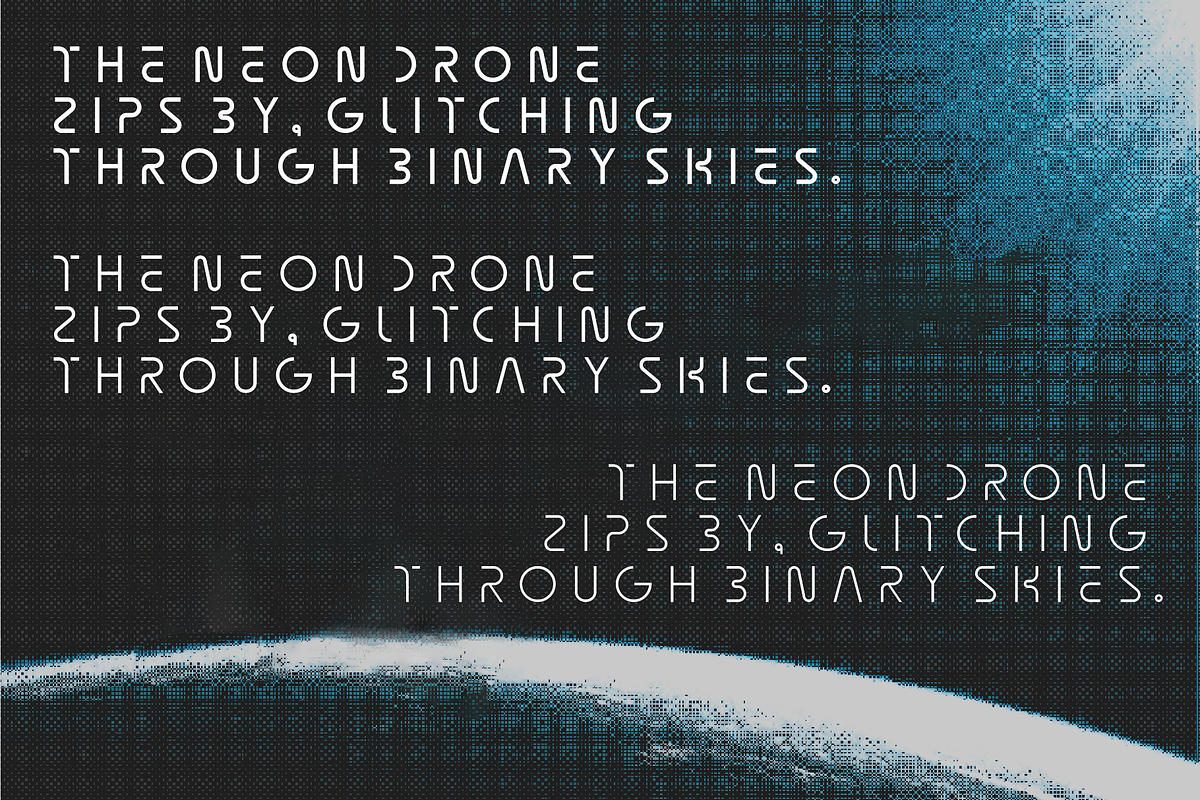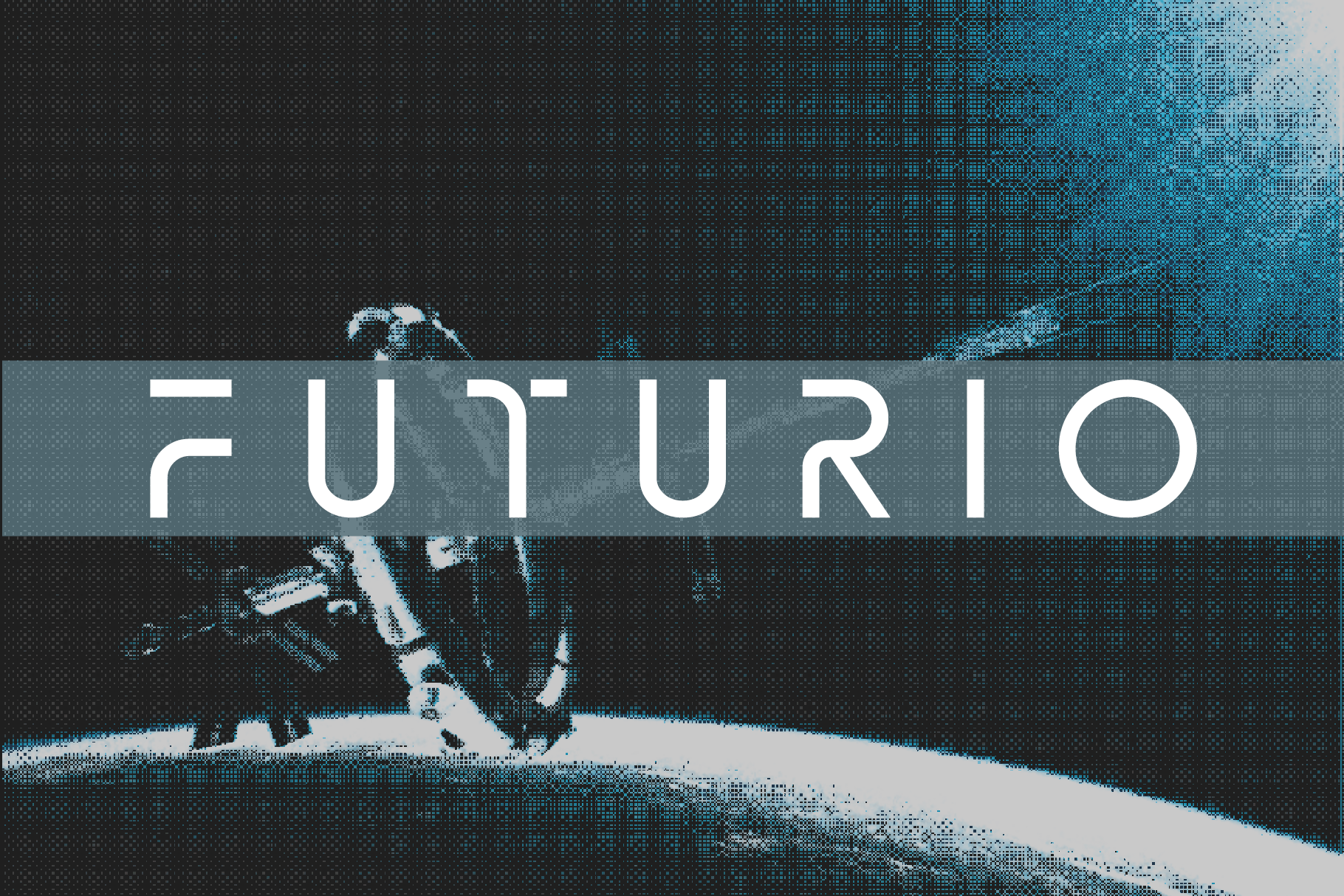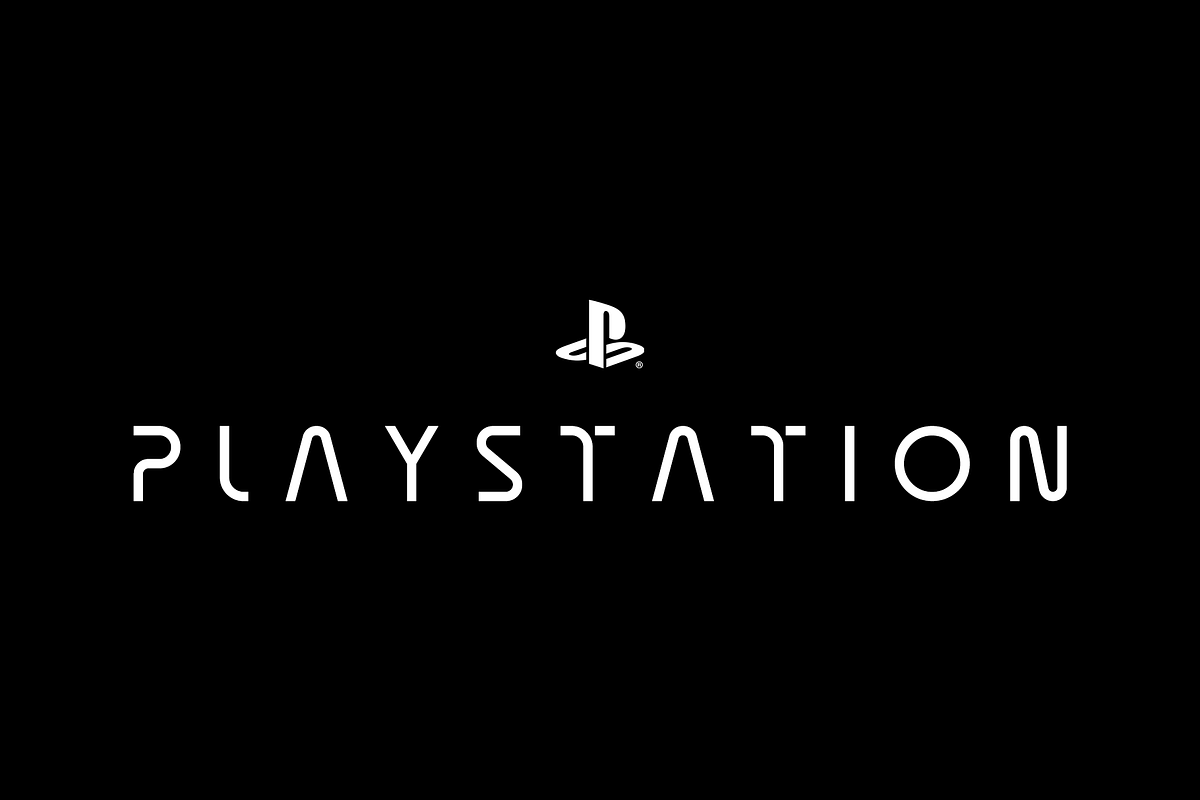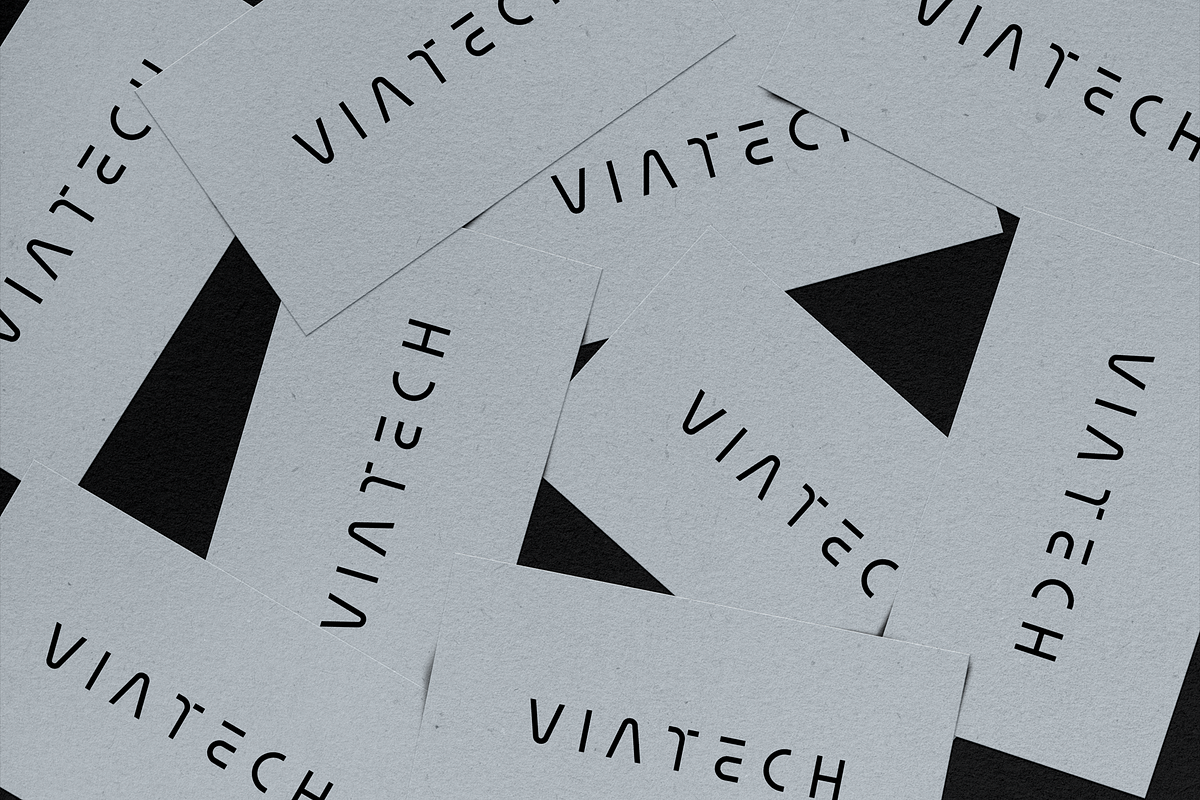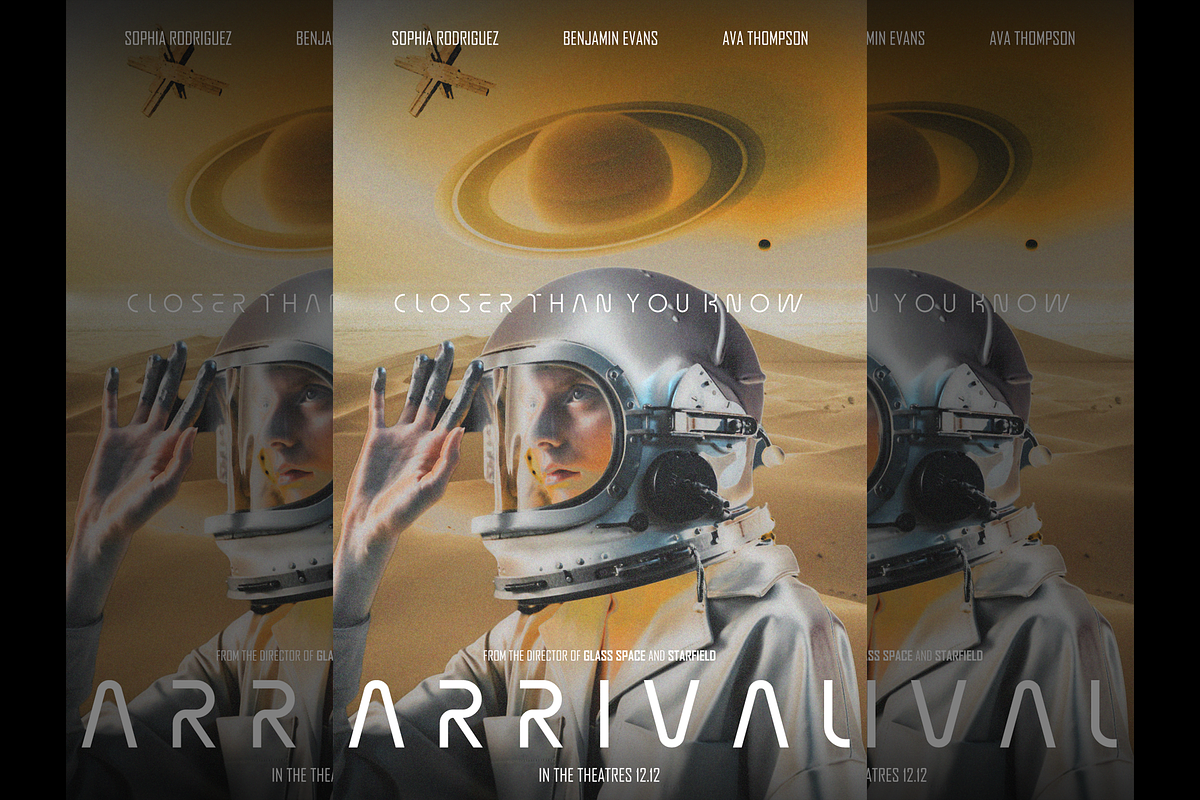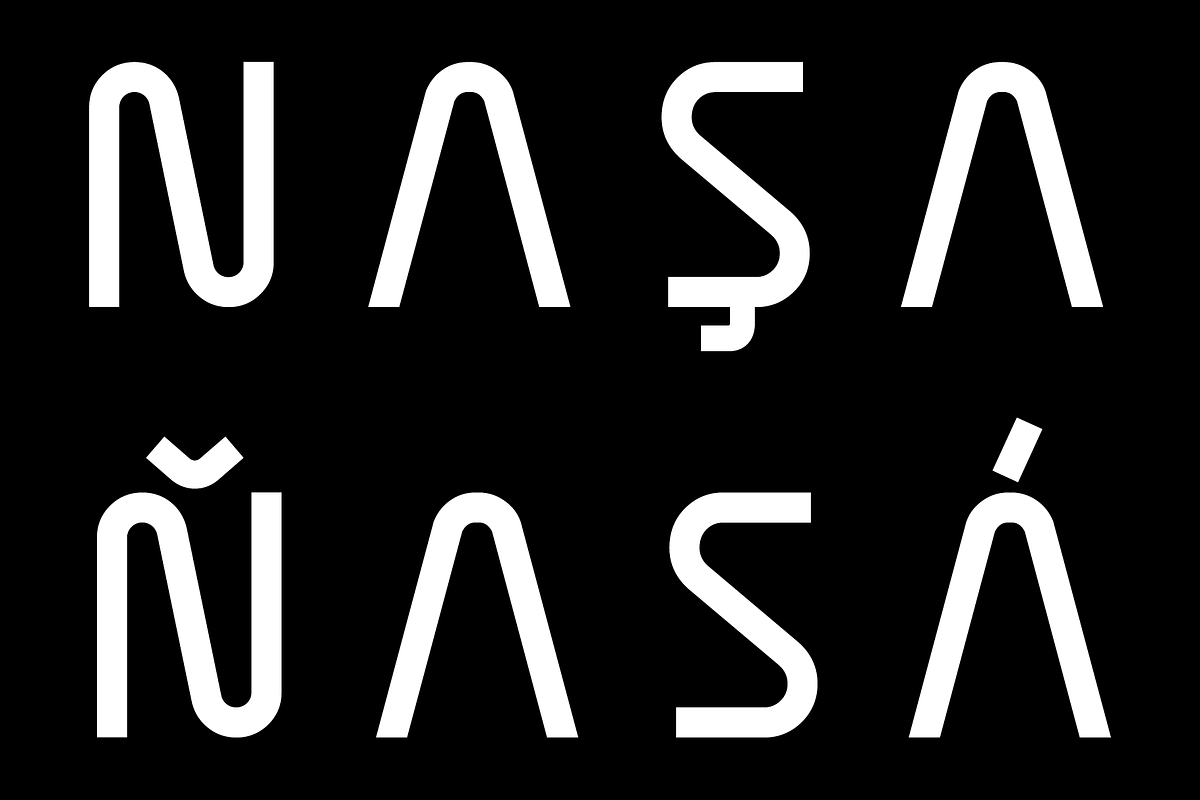
Inspired by the golden age of science fiction, "FUTURIO" exudes a captivating retro-futuristic vibe. Its sleek lines and geometric shapes pay homage to classic sci-fi aesthetics while incorporating a modern twist. Perfect for book covers, posters, and branding projects, this font offers a unique blend of timeless elegance and contemporary flair. Immerse yourself in a world where vintage nostalgia meets cutting-edge design with the "FUTURIO".